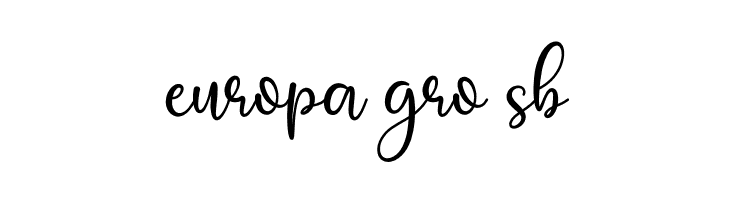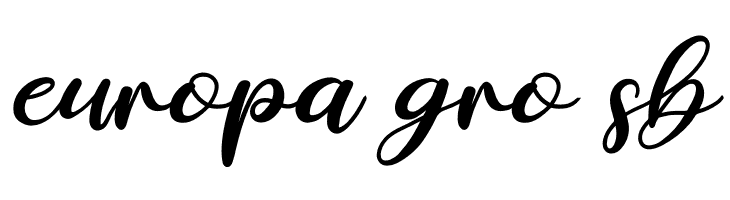
A bold, classic serif font with a modern twist, featuring strong strokes and clear characters.
An elegant, flowing script font with intricate loops and modern flair.
A bold, hand-painted style font with a dynamic and artistic appearance.
A bold, playful font with decorative curves and sharp edges.
A playful, hand-drawn font with characters in pebble-like shapes.
A lively and flowing script font with elegant curves and smooth connections.
A bold, decorative font with ornate flourishes and a vintage style.
A bold, decorative font with intricate details and high contrast.
A dynamic, cursive handwritten font with fluid strokes and a slanted style.
A graceful and flowing script font with elegant, fluid letterforms.
A graceful script font with flowing, connected letters and elegant flourishes.
An artistic script font with elongated, flowing strokes and a handwritten appearance.
A pixelated, blocky font with a retro digital aesthetic.
A bold, decorative font with a unique crosshatch pattern and geometric structure.
A rough, sketch-like font with dynamic, hand-drawn strokes.
A playful, rounded outline font with a bubbly, whimsical style.
A playful, bold font with rounded, bubble-like characters.
A bold, playful script font with a dynamic, handwritten style.
A bold, dripping font with a spooky, playful aesthetic.
A playful, bold handwritten font with smooth, rounded strokes.
A bold, dripping font with a spooky, playful aesthetic.
A bold, italicized font with a strong, modern presence.
A playful, handwritten font with bold, irregular strokes and a casual style.
A bold, playful, hand-drawn font with a dynamic and energetic style.
A bold, block-like font with a vintage Western flair.
A classic serif font with modern elegance and readability.
A bold, classic serif font with strong, authoritative strokes and excellent readability.
A bold and italic serif font with a dynamic and sophisticated style.
An elegant italic serif font with smooth curves and sharp serifs.
A classic serif typeface with balanced proportions and slight stroke variations for enhanced readability.
A bold, three-dimensional font with a striking shadow effect and geometric design.
An elegant, whimsical font with thin lines and decorative flourishes.
A bold, decorative font with vintage and western influences.